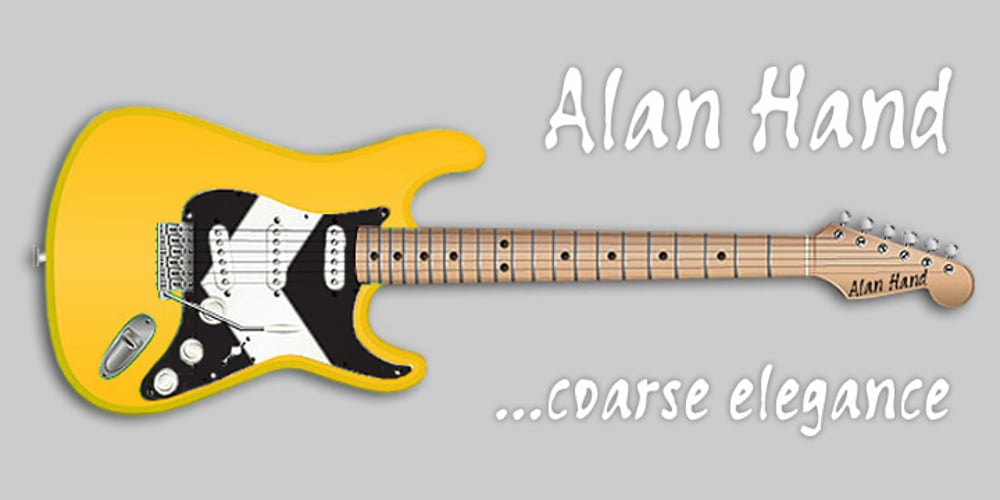
Alan Hand
Alan Hand font
Alan Hand Font Family was designed by published by K-Type. Alan Hand contains 1 styles and family package options. Based on some beautifully blobby lettering, handwritten by printer and mailartist, Alan Brignull. Alan creates amazingly credible artistamps for the virtual countries of Adanaland and the Perfect State of Flatby, lands frozen in boyhood Englishness forever. He writes nicely too.